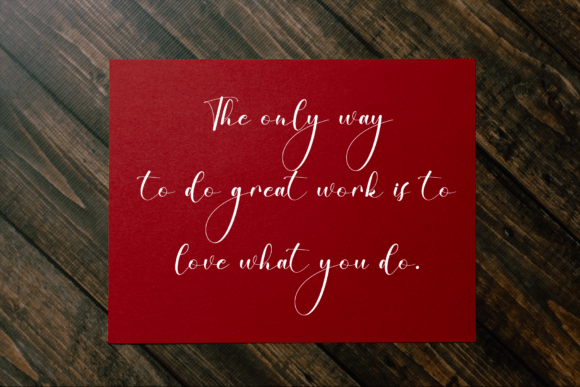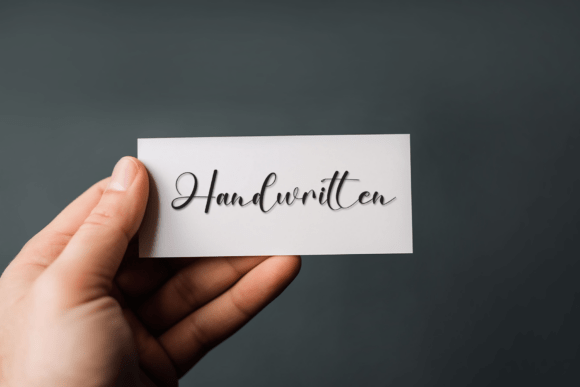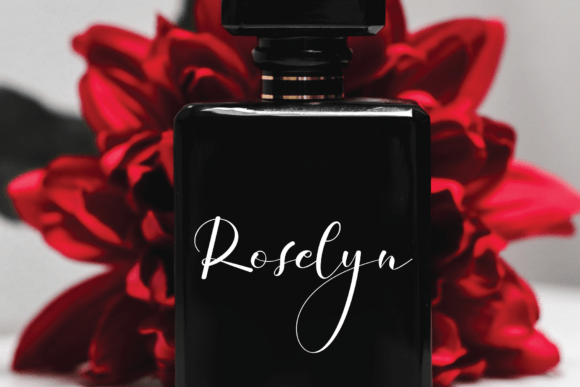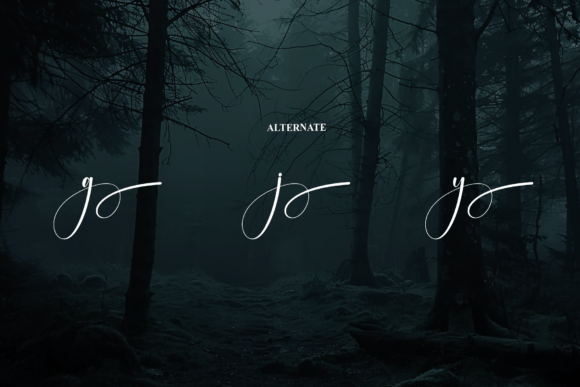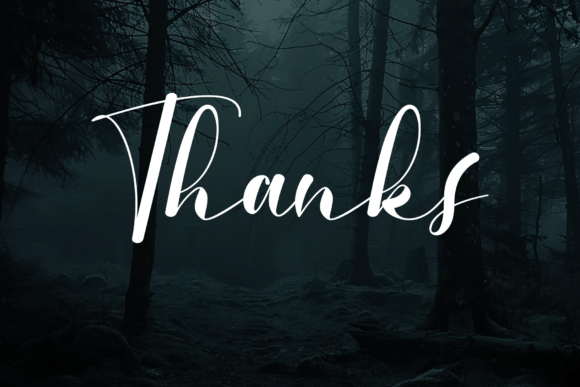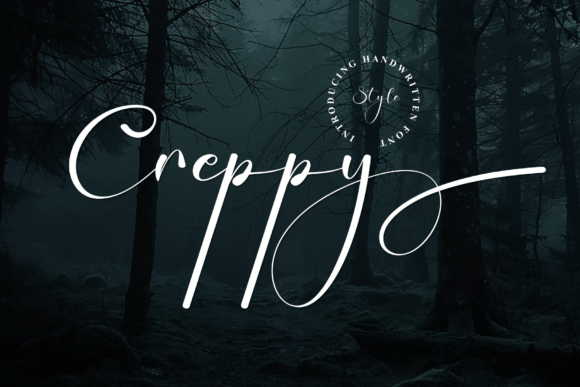
Unleash the Drama: Exploring the Creppy Font
Are you ready to add a touch of mystery and tension to your designs? Look no further than the Creppy font, a stunningly elongated handwritten script that’s sure to make a statement. With its sharp, razor-thin lines and expansive horizontal swashes, this typeface is perfect for designers who want to create an atmosphere of intrigue and drama.
The Aesthetic of Creppy
At first glance, the Creppy font may seem to suggest a darker tone, but upon closer inspection, its elegance and sophistication shine through. The sharp, thin lines and sweeping swashes create a sense of movement and fluidity, making it perfect for high-fashion branding, thriller book titles, or avant-garde event posters.
One of the standout features of the Creppy font is its incredible versatility. Whether you’re looking to create a sense of luxury and glamour or a feeling of foreboding and unease, this typeface can do it all. The Creppy font is perfect for designers who want to push the boundaries of creativity and experiment with new and innovative design ideas.
Enhancing the Ethereal Quality of Creppy
To take your Creppy font designs to the next level, consider enhancing its ethereal quality with wide letter spacing or pairing it with grainy, atmospheric photography. This will add a sense of depth and texture to your designs, making them even more compelling and engaging.
The Creppy font is also a great choice for designers who want to add a touch of whimsy and personality to their work. Its unique and quirky aesthetic makes it perfect for use in a variety of creative projects, from fashion branding and advertising to packaging and editorial design.
With the Creppy font, you can effortlessly access a wide range of design elements, from elegant swashes and flourishes to unique alternate characters. This level of flexibility and creativity makes it an ideal choice for designers who want to push the boundaries of what’s possible with typography.
Design Inspiration: Where to Use Creppy
So, where can you use the Creppy font to make a statement? Here are a few ideas to get you started:
• High-fashion branding: The Creppy font’s elegant and sophisticated aesthetic makes it perfect for high-end fashion brands looking to create a sense of luxury and glamour.
• Thriller book titles: The Creppy font’s dark and dramatic tone makes it ideal for thriller book titles, adding a sense of tension and suspense to your design.
• Avant-garde event posters: The Creppy font’s unique and quirky aesthetic makes it perfect for avant-garde event posters, adding a touch of whimsy and personality to your design.
In conclusion, the Creppy font is a sophisticated and elegant typeface that’s perfect for designers looking to add a touch of drama and mystery to their work. With its sharp, razor-thin lines and expansive horizontal swashes, this font is sure to make a statement in any design.